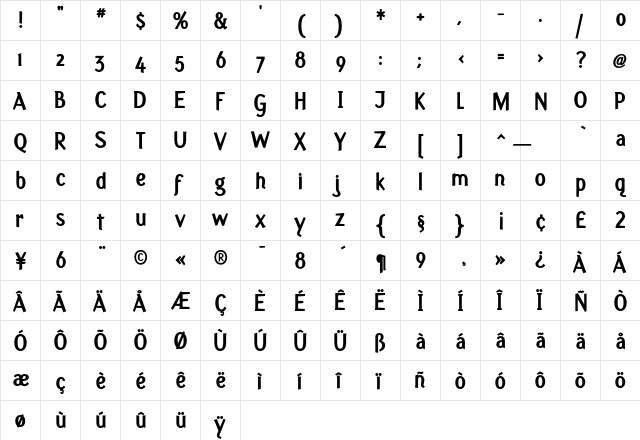
Fasciani-Senza ExtraBold
Design Context for Fasciani-Senza Typeface
Fasciani-Senza offers clean, dependable letterforms without strong stylistic allegiance, making it a practical choice for designers who need flexibility. The heavy weight commands attention and anchors typographic hierarchies.